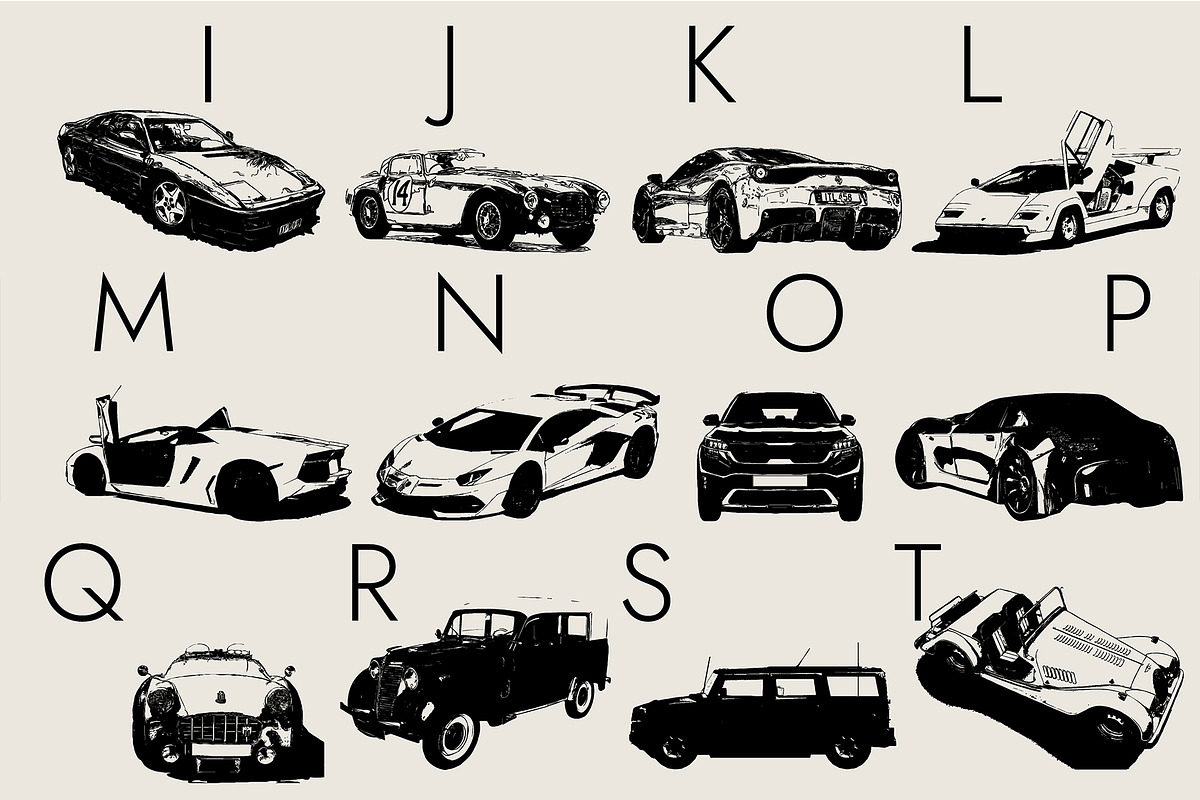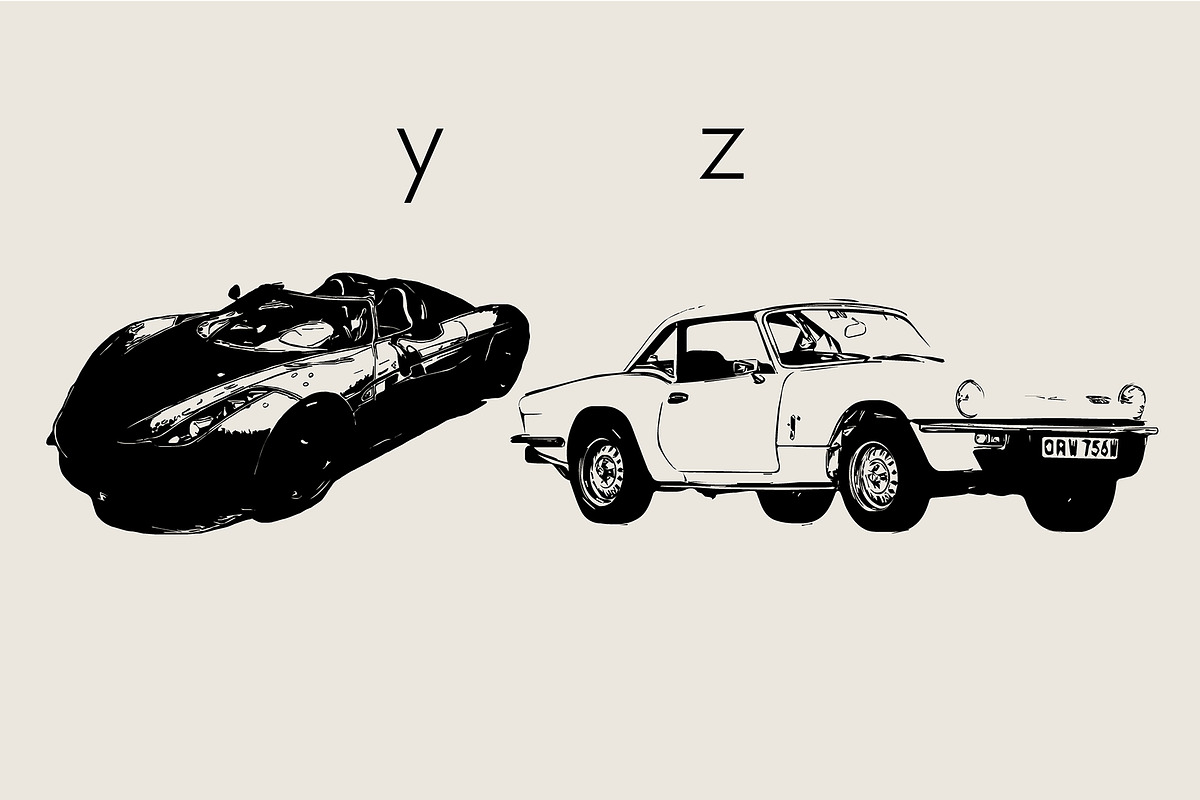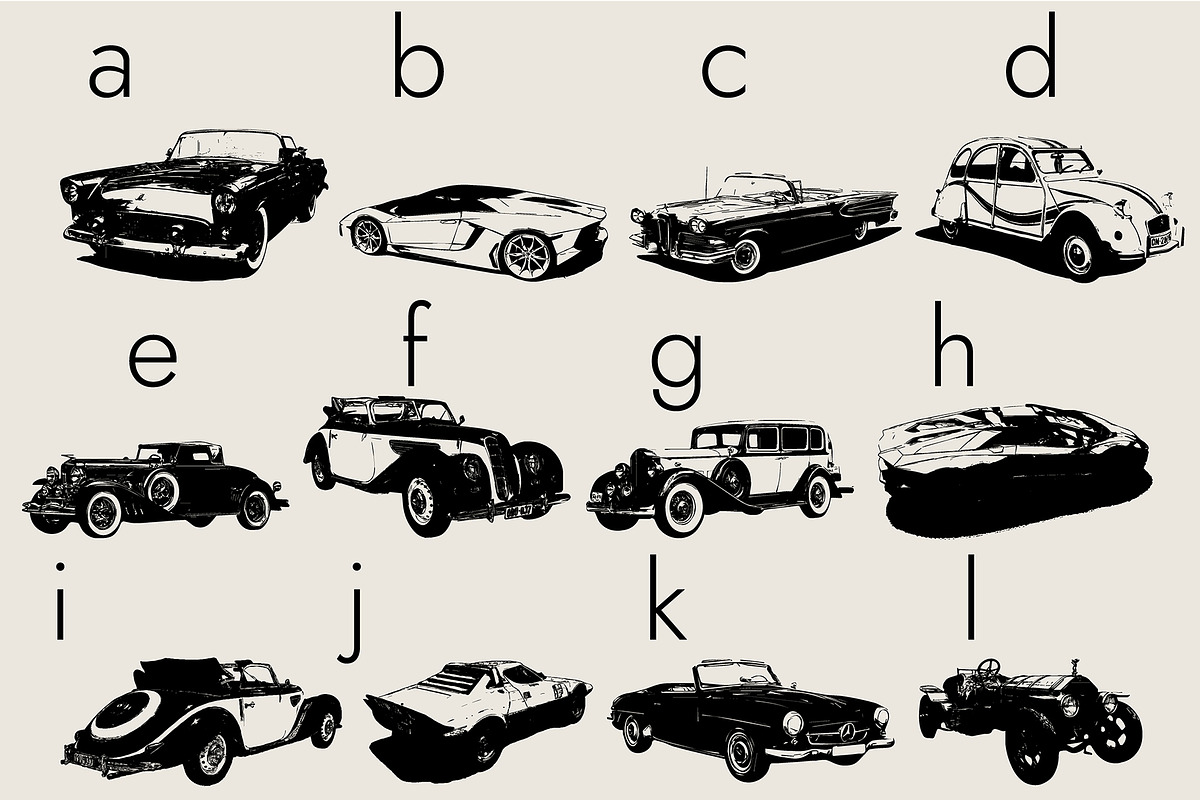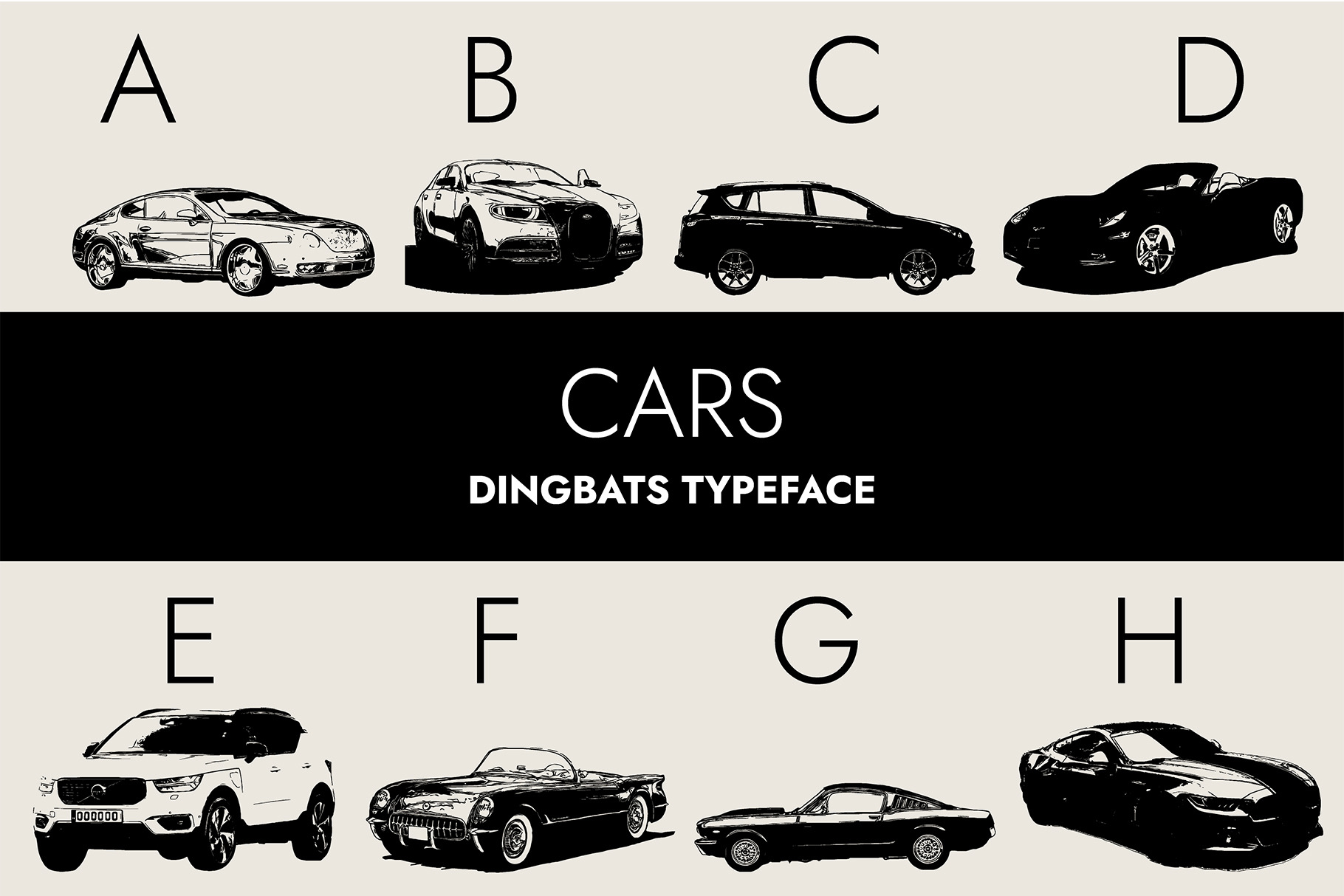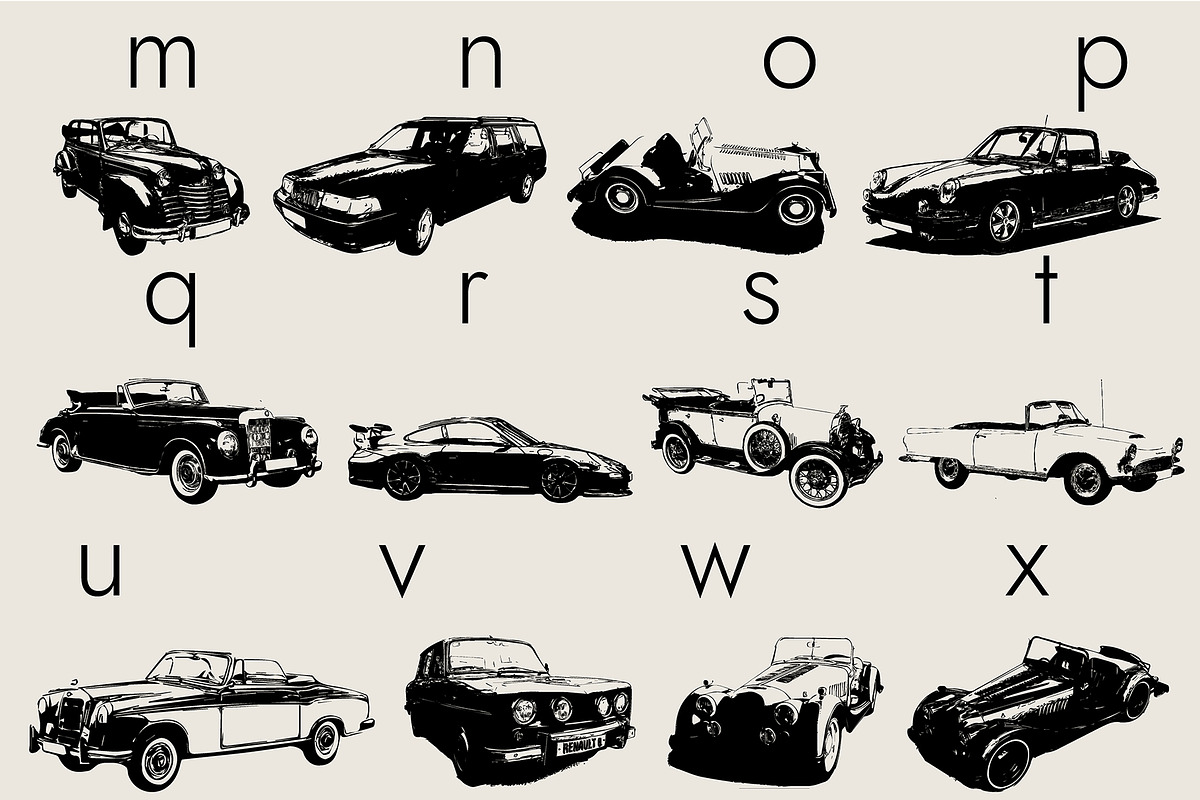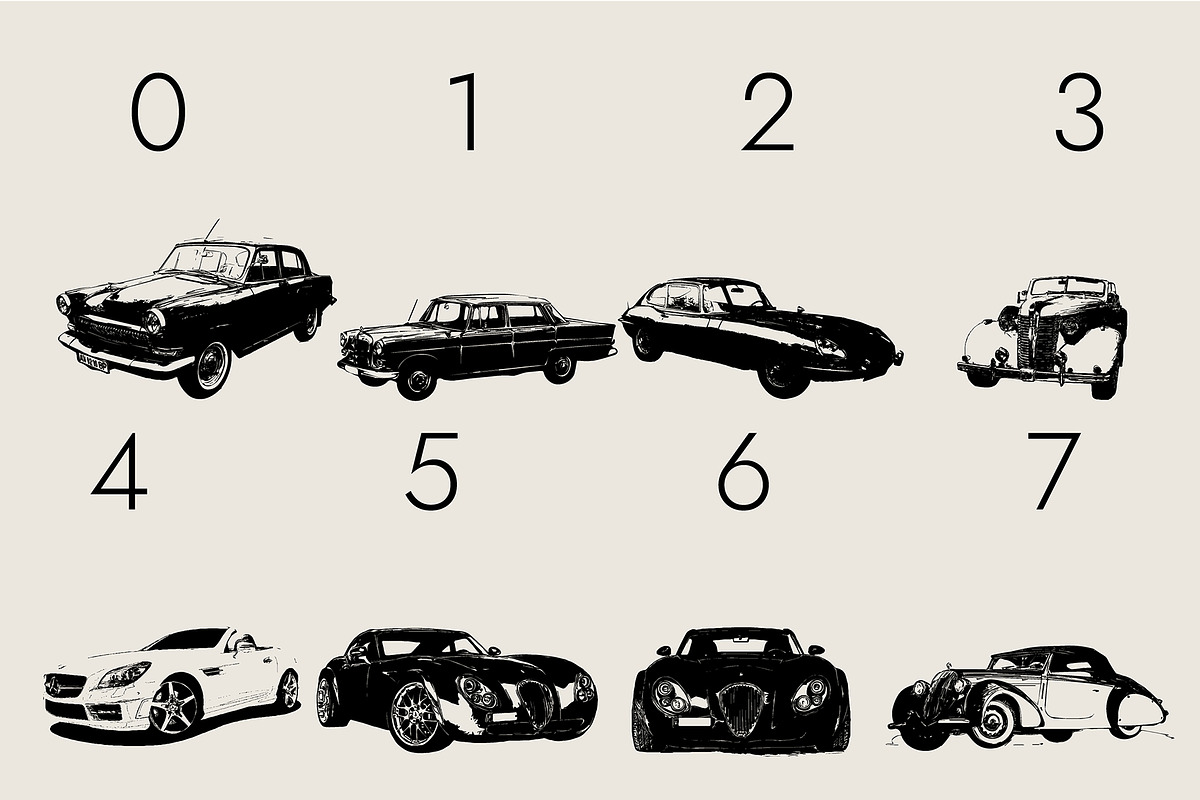
Cars Dingbats Font
Cars is a cool, useful and detailed dingbats font. Add it to crafts, digital designs, presentations, or cards. The only limit is your imagination.